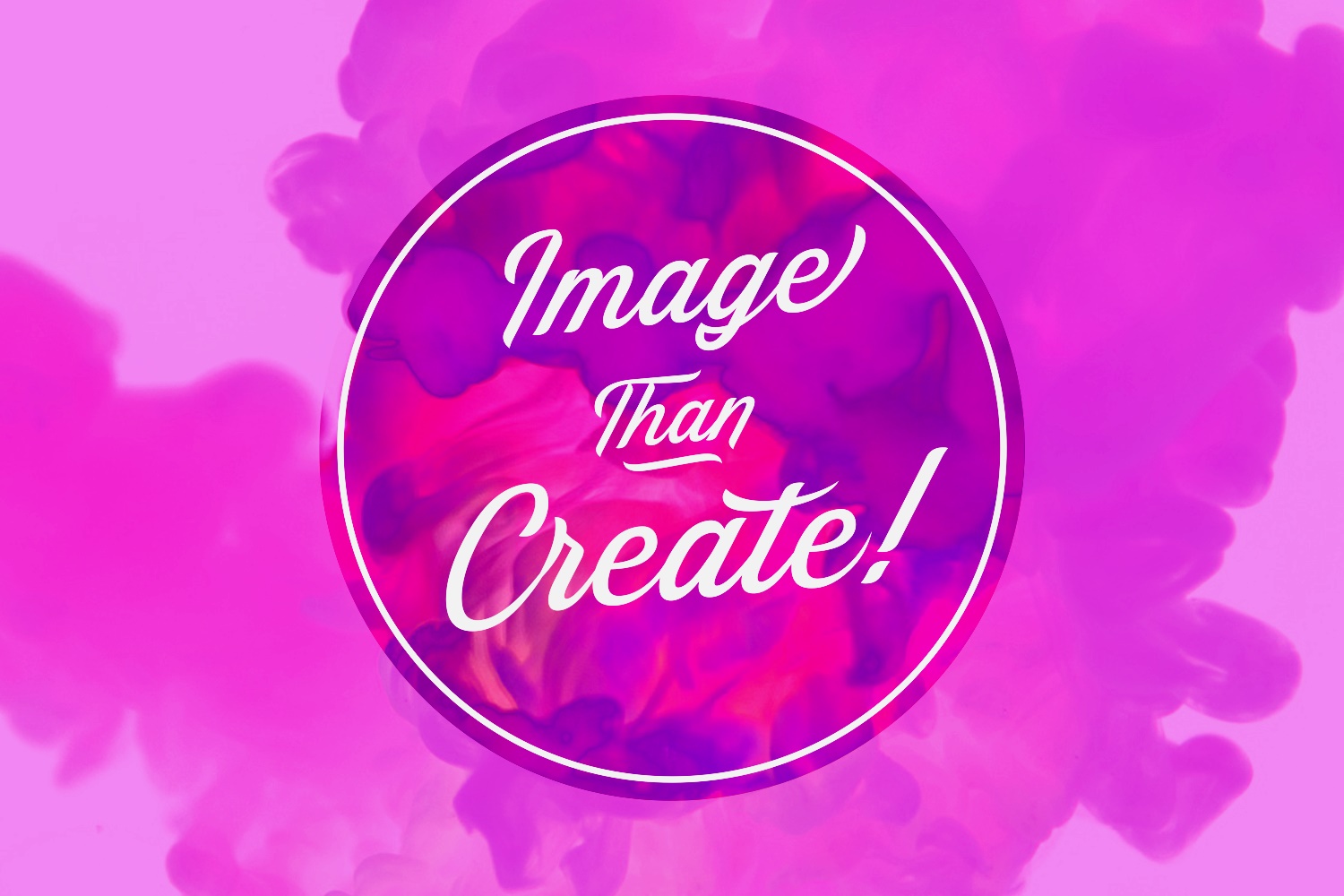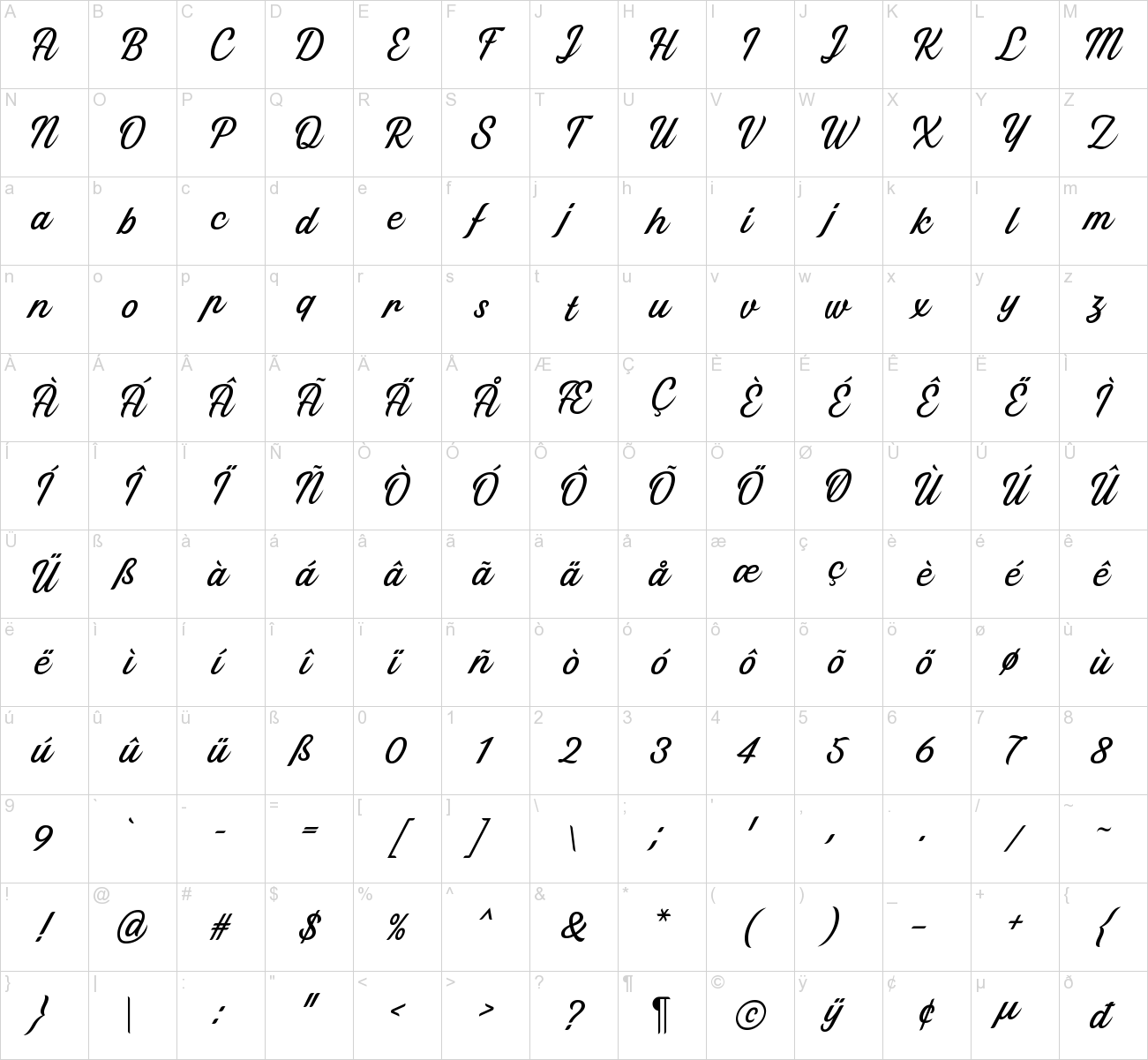
Thany Typeface
Thany is a gorgeous painterly headline font, perfect for use in a wide range of styles! This font straddles the line between retro and refreshingly modern, and looks gorgeous when the focal point of your work.